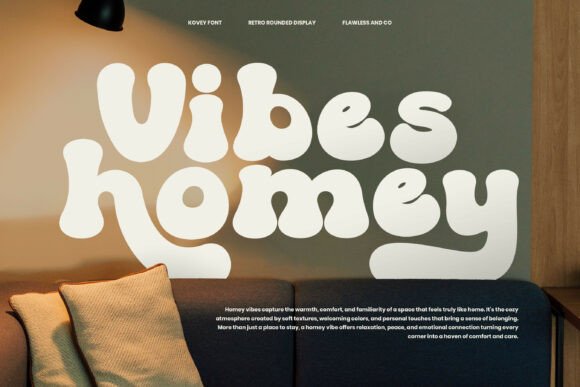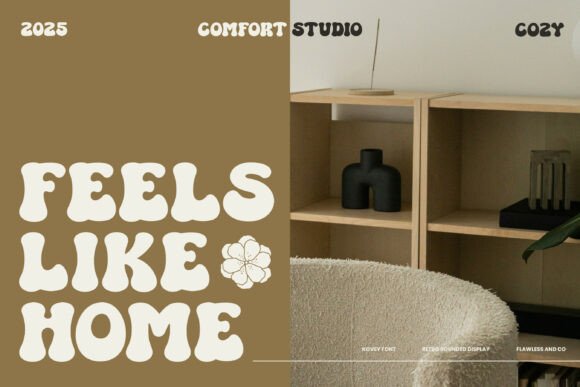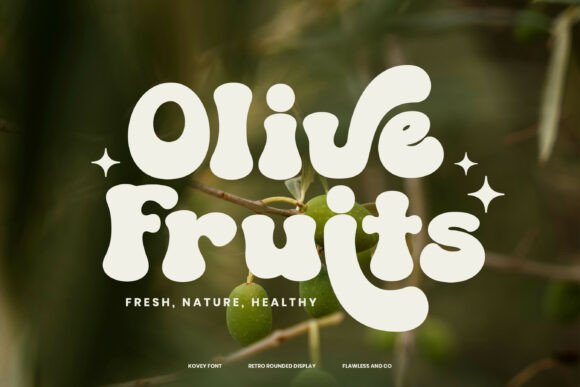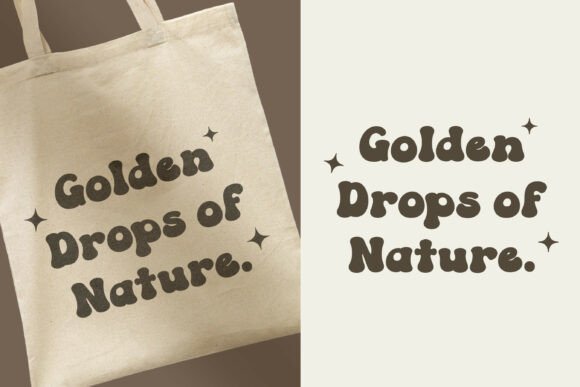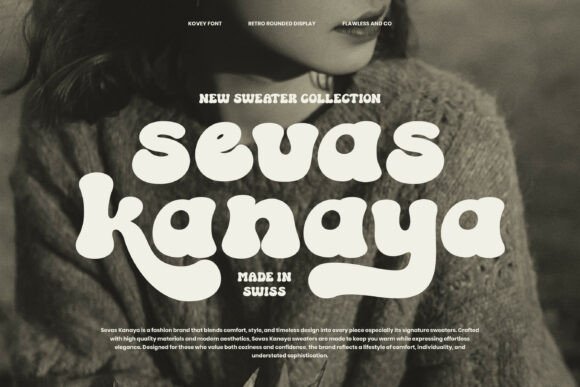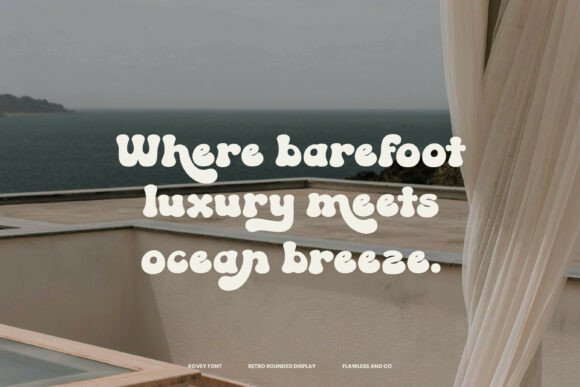
Introduction to Kovey Font
Kovey is a bold and playful retro display font that brings groovy vibes and nostalgic charm to your designs.
With its soft rounded edges and bubbly letterforms, this font captures the essence of vintage aesthetics while staying modern and fresh Perfect for adding personality and fun, Kovey makes every word feel vibrant and full of life.